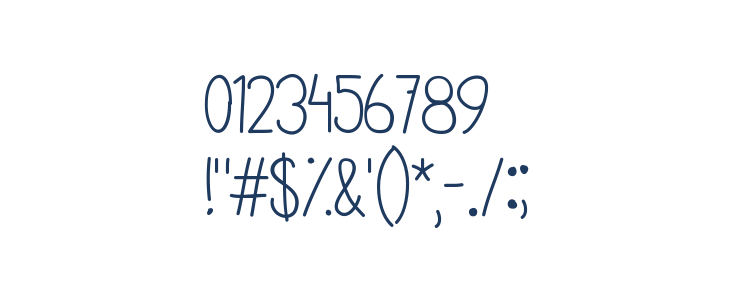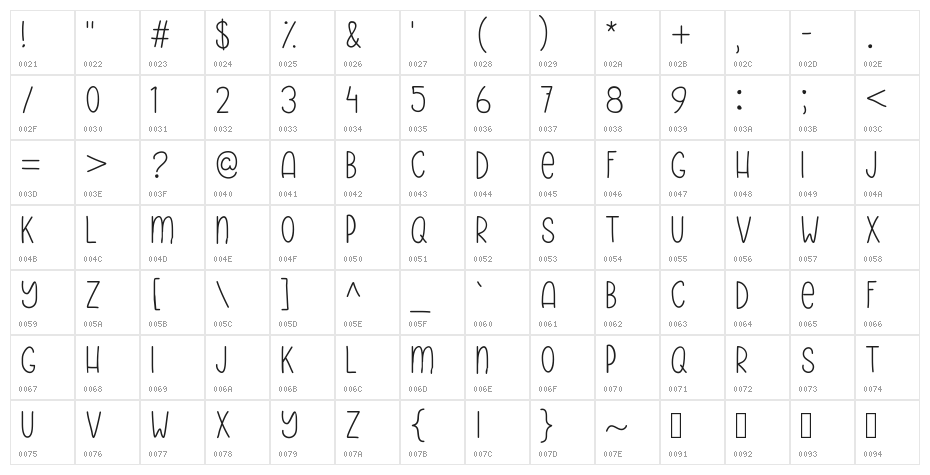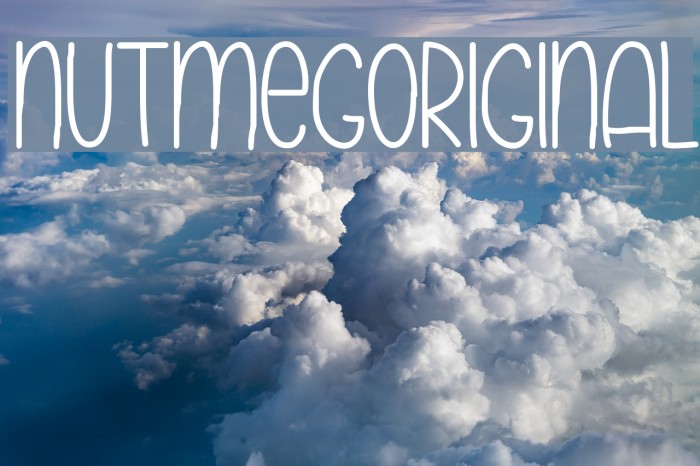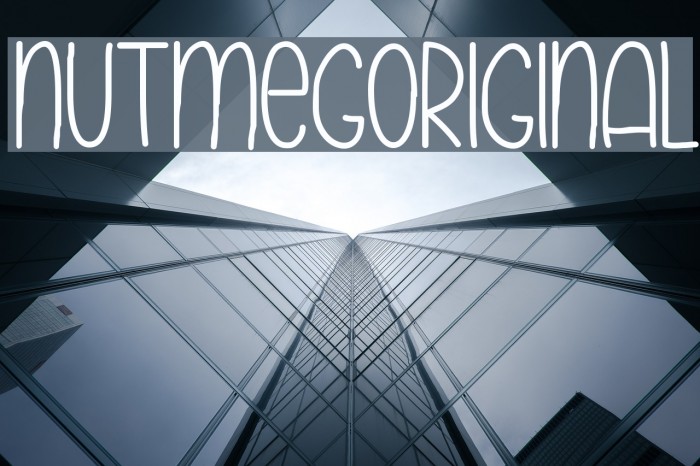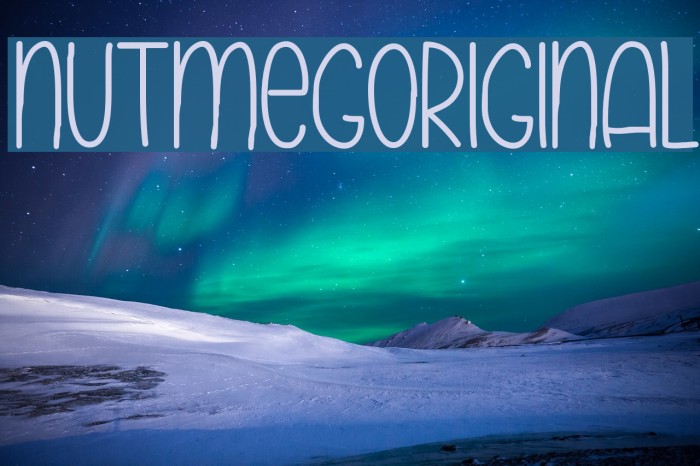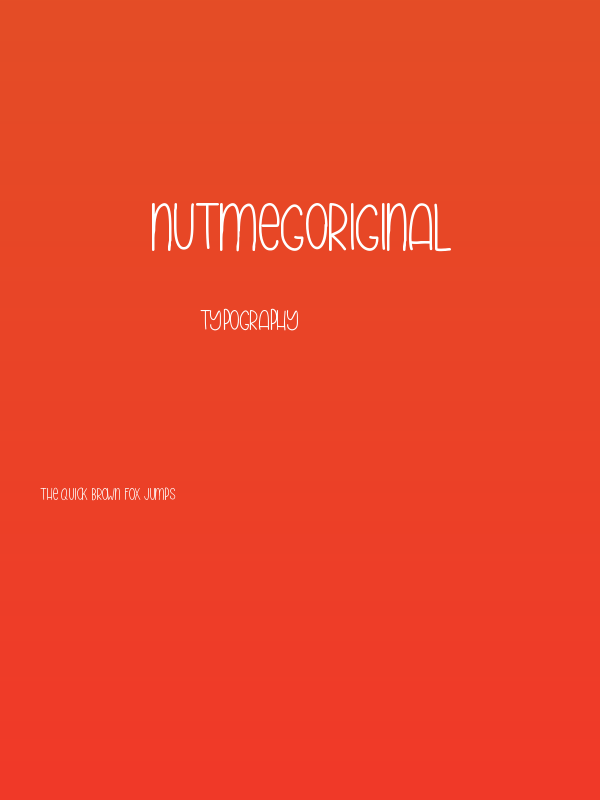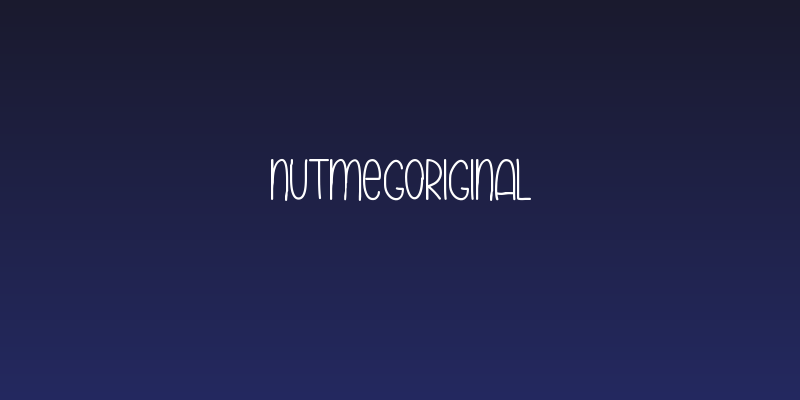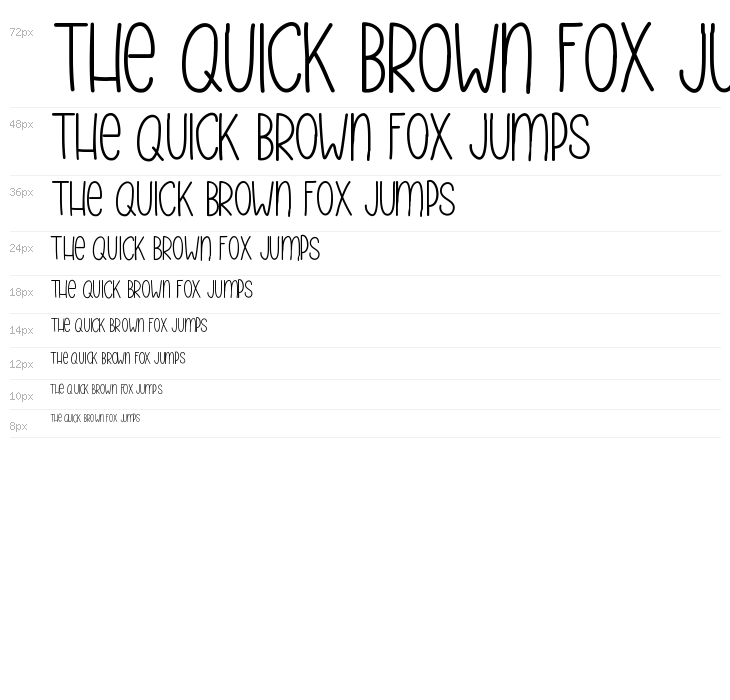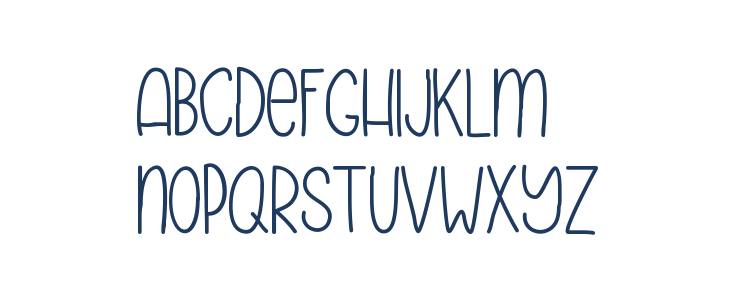
NutmegOriginal Font
NutmegOriginal Description
This font features a playful and whimsical design, characterized by its tall, narrow letters with rounded edges. The strokes are consistent in width, giving it a uniform appearance. The uppercase and lowercase letters maintain a cohesive style, with a slightly informal and hand-drawn feel. The numerals and special characters complement the alphabet with similar rounded and elongated forms, making it suitable for creative and casual applications. Its unique style adds a touch of personality and charm, making it stand out in various design contexts.
| Proposed Projects | Ideal for children's books, greeting cards, playful branding, and creative posters. |